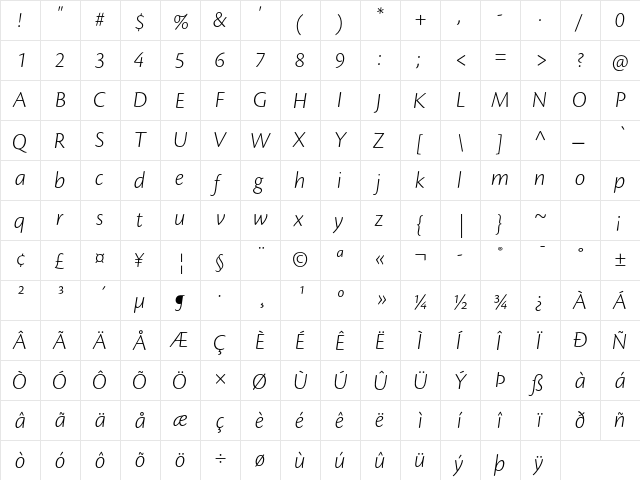
Cronos Pro Light Subhead Italic
| Designer | Robert Slimbach |
Design Context for Cronos Pro Typeface
Cronos Pro offers clean, dependable letterforms without strong stylistic allegiance, making it a practical choice for designers who need flexibility. Its italic angle brings a sense of urgency and motion to the letterforms. Its slender proportions lend an understated elegance to any composition.
Pro Tip: Use Cronos Pro for emphasis, pull quotes, and subheadings where its slanted energy can add rhythm to the layout.